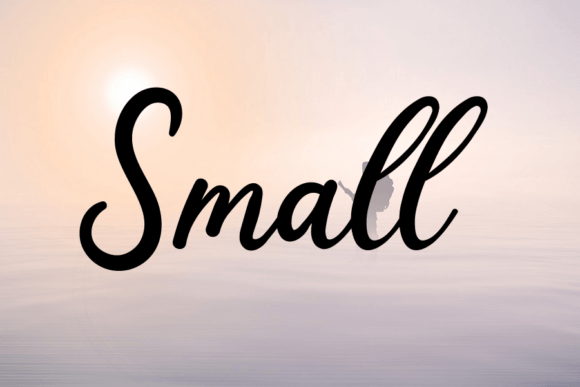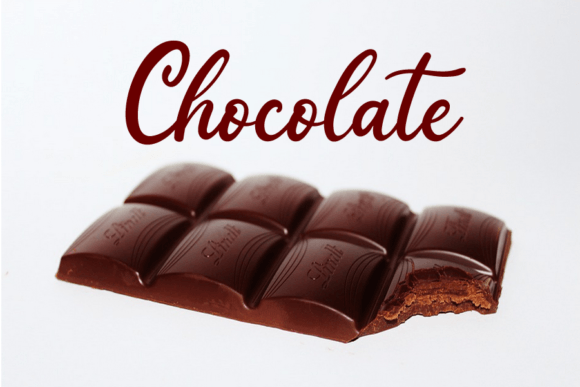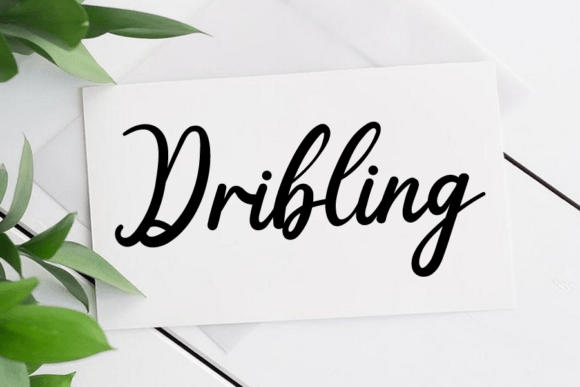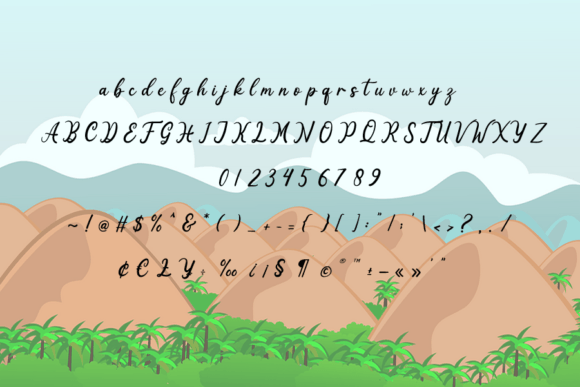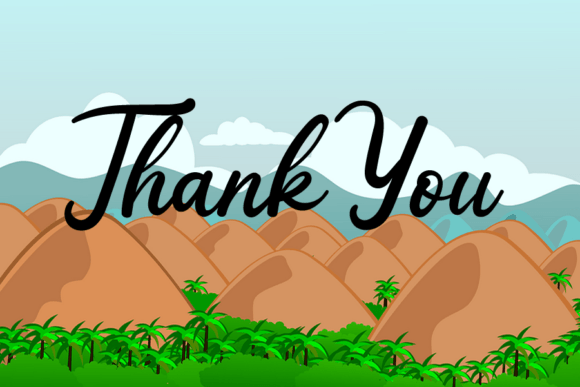
Introducing Chiled Font: The Elegant and Timeless Choice for Designers and Crafters
Are you tired of using the same old fonts for your design projects? Look no further than Chiled Font, a beautiful and flowing handwritten font that is sure to capture your heart. With its elegant touch and incredibly distinct style, Chiled Font is the perfect choice for designers and crafters looking to add a touch of sophistication and whimsy to their work.
What is Chiled Font?
Chiled Font is a unique and stylish handwritten font that is characterized by its flowing lines and elegant curves. It is a versatile font that can be used for a wide range of design projects, from branding and advertising to packaging and digital media. Whether you’re looking to create a beautiful logo, a stunning poster, or a captivating social media graphic, Chiled Font is the perfect choice.
The Benefits of Using Chiled Font
So why choose Chiled Font for your design projects? Here are just a few of the benefits of using this amazing font:
- Elegant and sophisticated: Chiled Font has an undeniably elegant and sophisticated feel that is sure to impress your clients and audience.
- Unique and distinctive: With its flowing lines and curved strokes, Chiled Font is a truly unique and distinctive font that will set your designs apart from the crowd.
- Versatile: Chiled Font can be used for a wide range of design projects, from formal and professional to playful and creative.
- Easy to read: Despite its elegant and cursive nature, Chiled Font is surprisingly easy to read, making it perfect for body text and longer blocks of copy.
How to Use Chiled Font in Your Designs
So how can you use Chiled Font in your designs? Here are a few ideas to get you started:
- Logos and branding: Use Chiled Font to create a beautiful and elegant logo that will help your brand stand out.
- Posters and flyers: Add a touch of sophistication and whimsy to your posters and flyers with Chiled Font.
- Social media graphics: Use Chiled Font to create stunning social media graphics that will capture your audience’s attention.
- Packaging: Add a touch of elegance and refinement to your packaging with Chiled Font.
Tips for Getting the Most Out of Chiled Font
Here are a few tips for getting the most out of Chiled Font:
- Experiment with different colors: Chiled Font looks amazing in a wide range of colors, so don’t be afraid to experiment and find the perfect hue for your design.
- Play with font sizes: Chiled Font can be used at a wide range of font sizes, from large and bold to small and delicate.
- Combine with other fonts: Chiled Font pairs beautifully with other fonts, so don’t be afraid to experiment with different combinations.